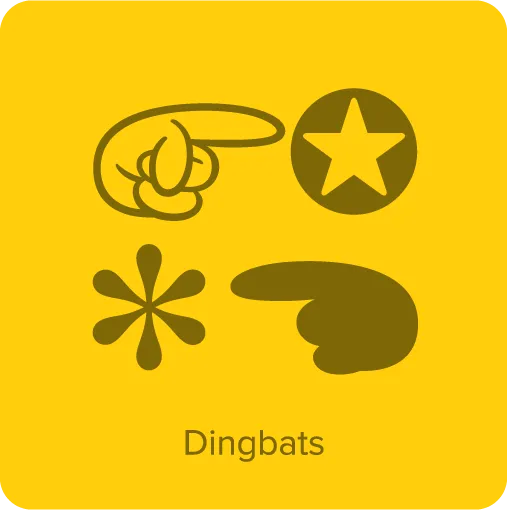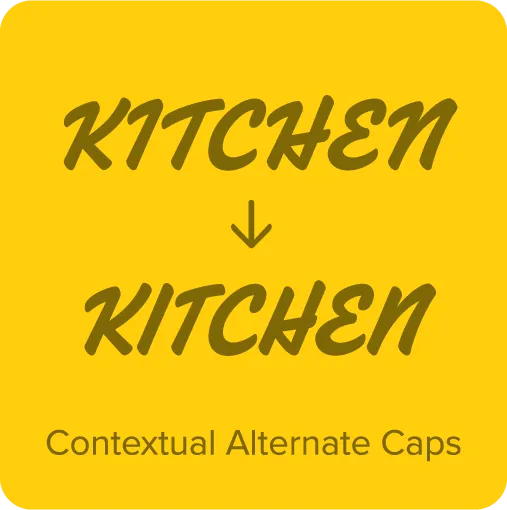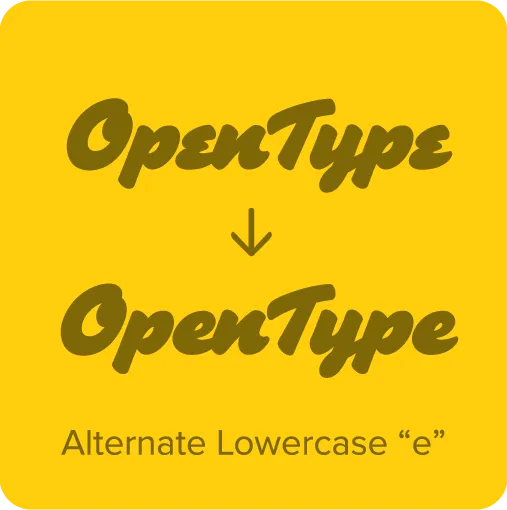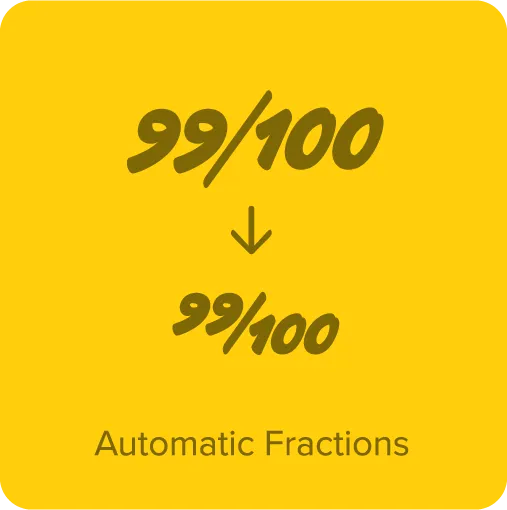
Heckle (2026) is a family of display fonts that began as a tiny sketch of the word “Heh” on a scrap of paper back in 2005 — a heavy brush script style with a 1940s/1950s feel. It wasn’t based on any particular source or model, but purely from the memory of such styles.
After doing a draft of the upper- and lowercase in 2017 I committed to developing it in October 2025, expanding it to six weights, from Light to Black. In contrast to the initial sketch, it uses sharp corners on the insides of curves, giving it a crisp, energetic appearance. It features an alternate lowercase “e,” contextual alternates for all-caps settings, automatic fractions, and a set of dingbats.
Heckle is well suited for branding, packaging, logos, editorial design, movie and book titles — any kind of display use where a smart, vintage style is called for.
• 7 styles: Light, Regular, Medium, Semi Bold, Bold, Extra Bold, and Black.
• Alternate lowercase “e” and contextual all-caps alternates.*
• Dingbats and symbols, including a hand-drawn manicule.
• Most OpenType layout features and broad language support for Latin-based Western and Central European languages.